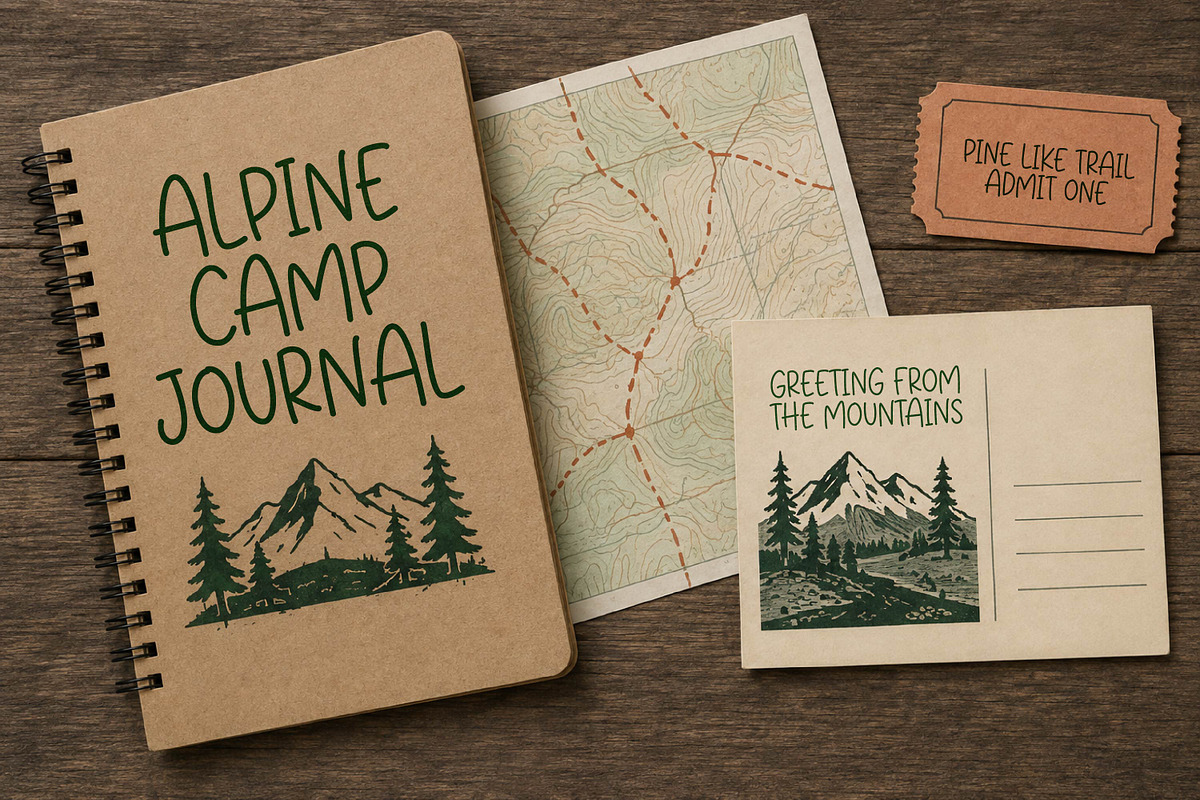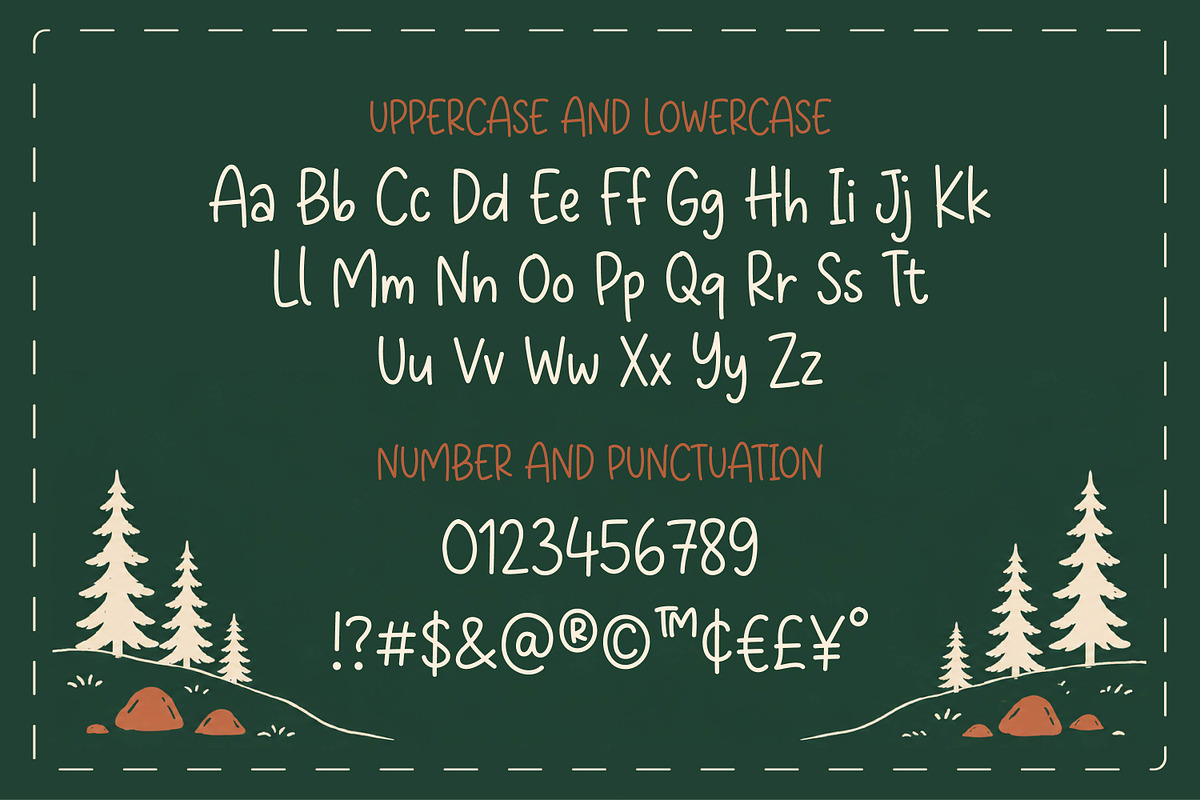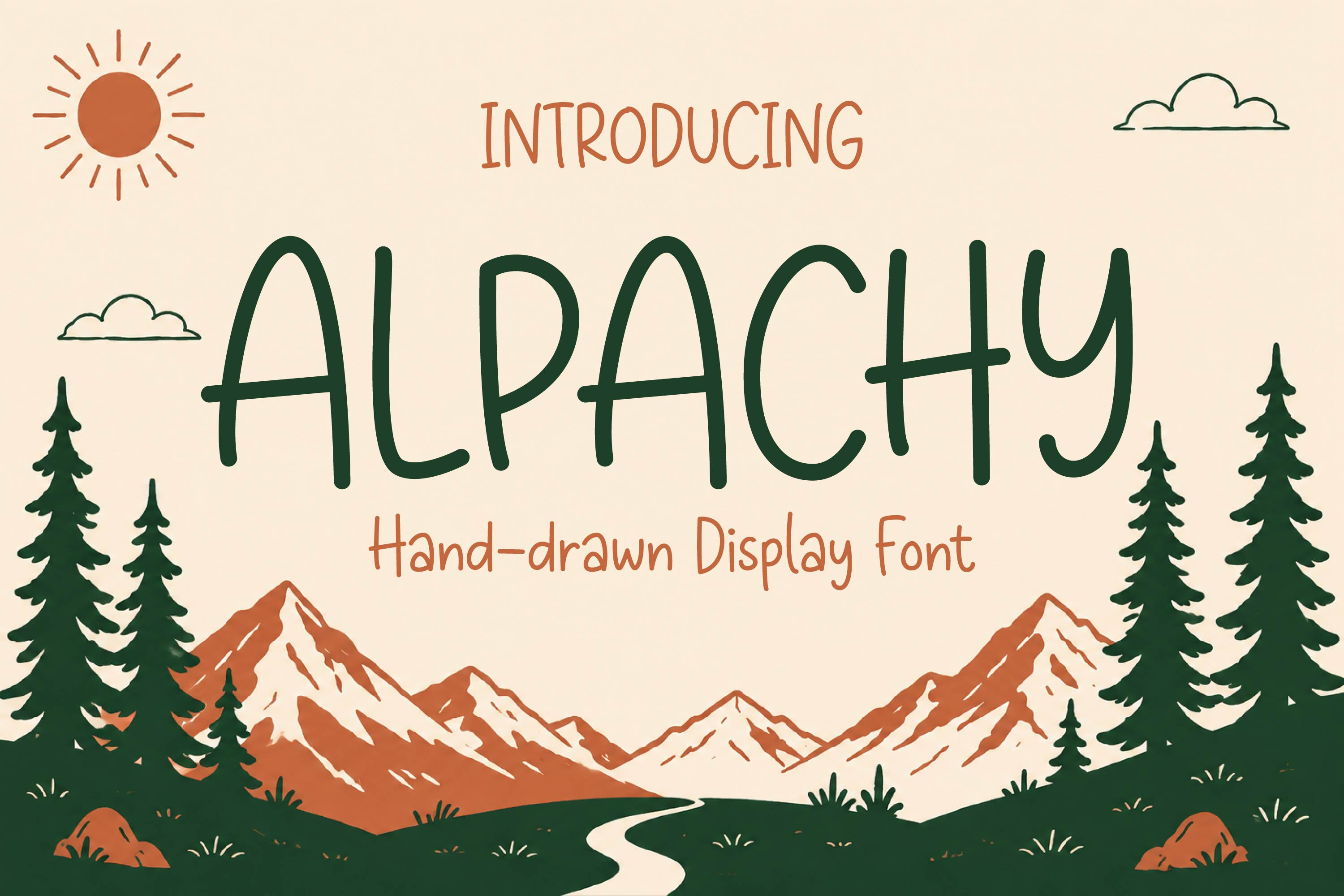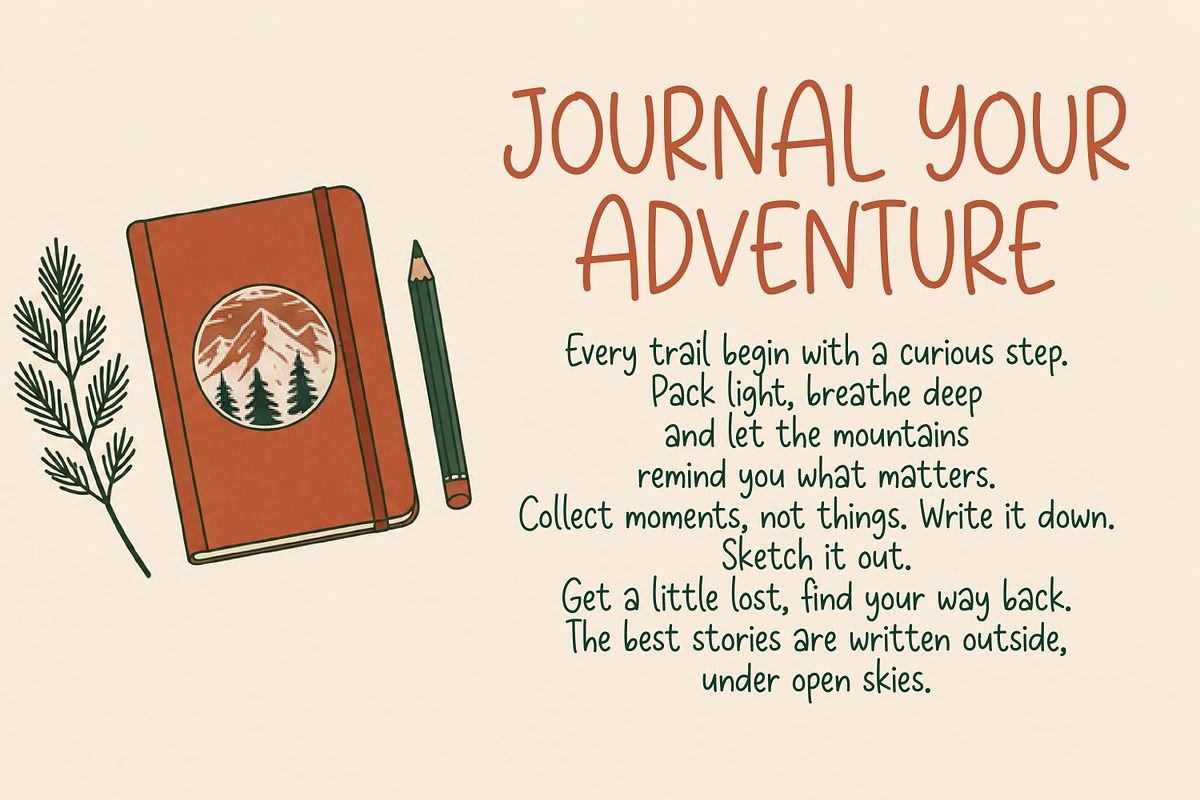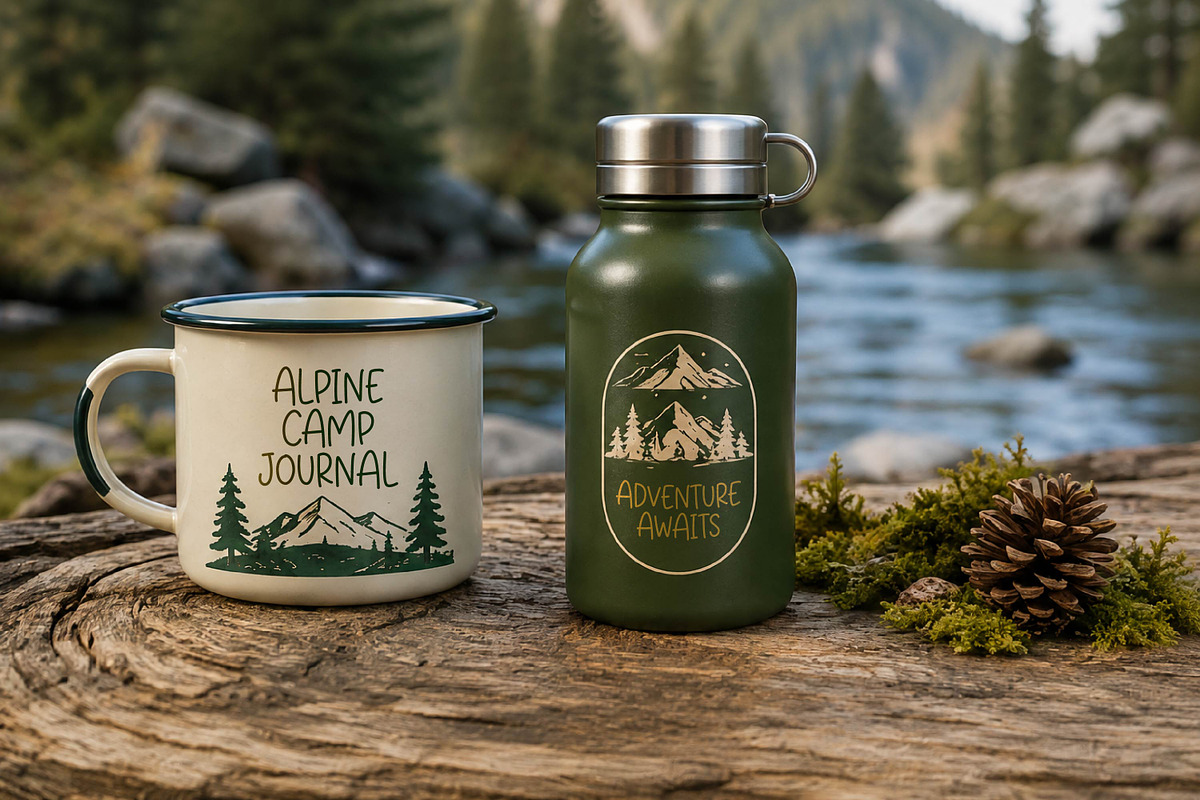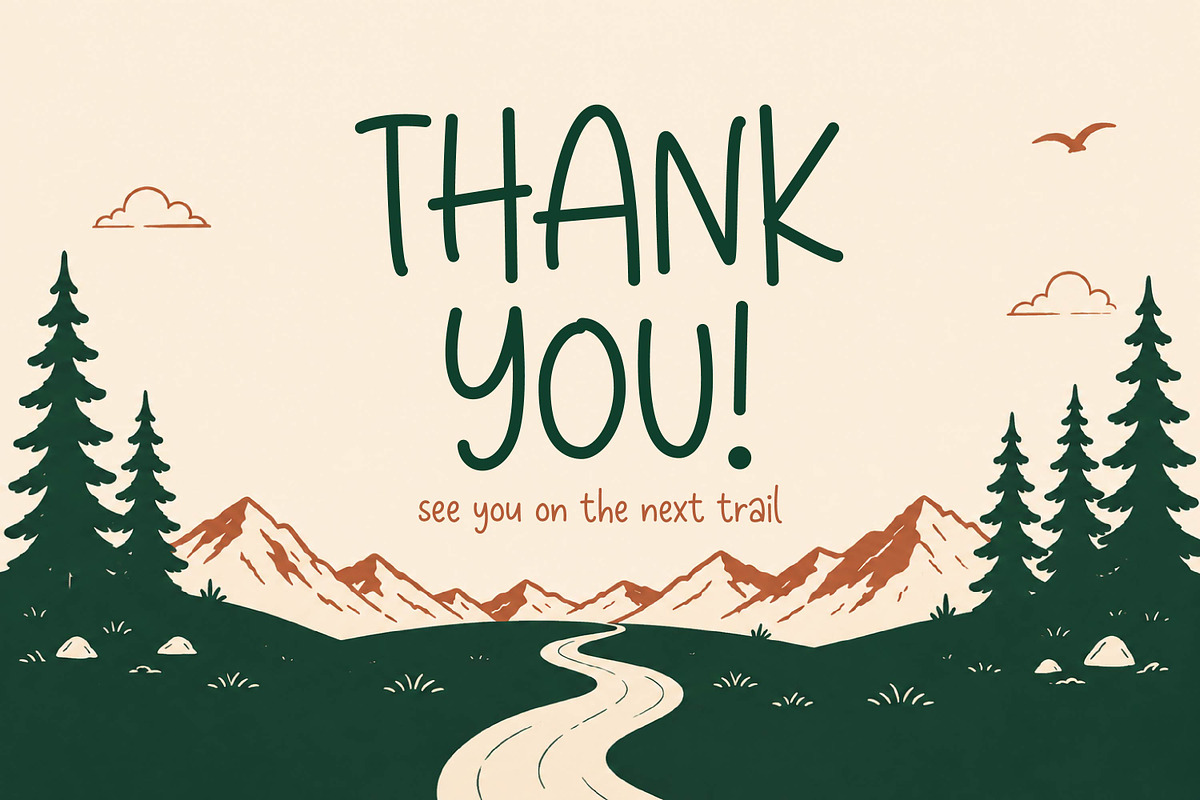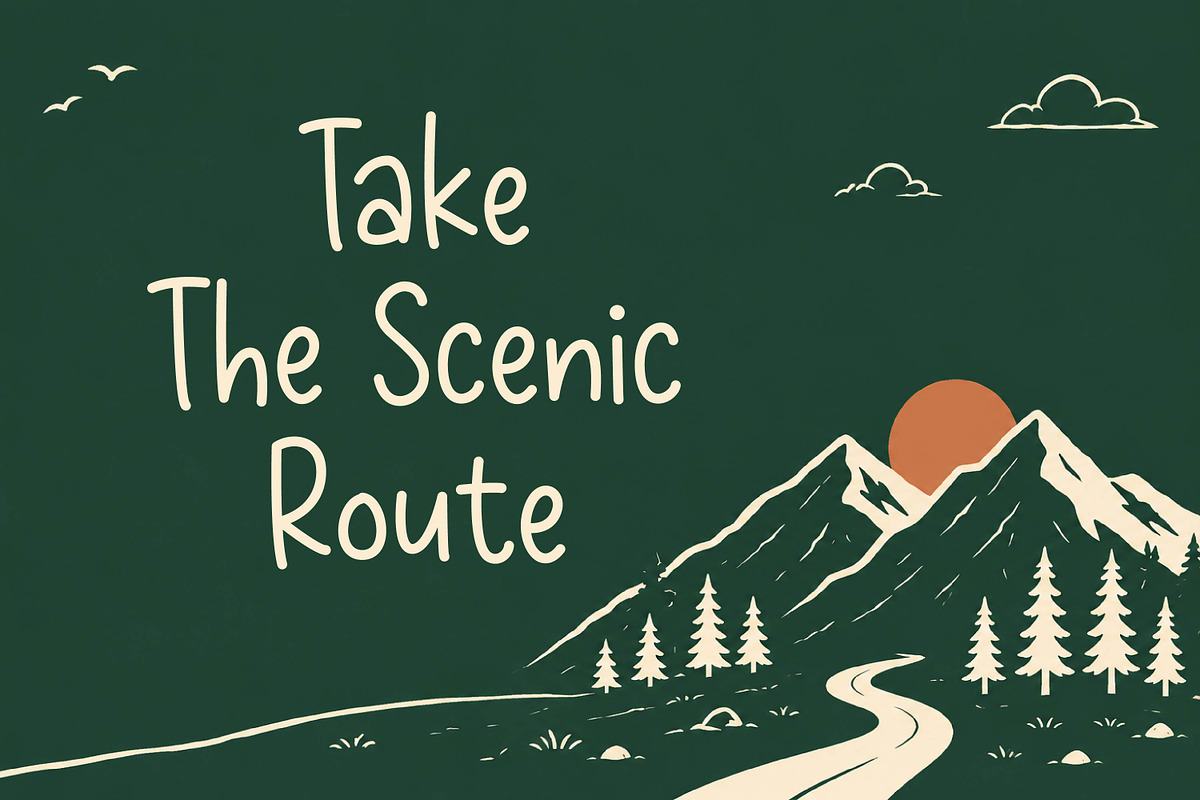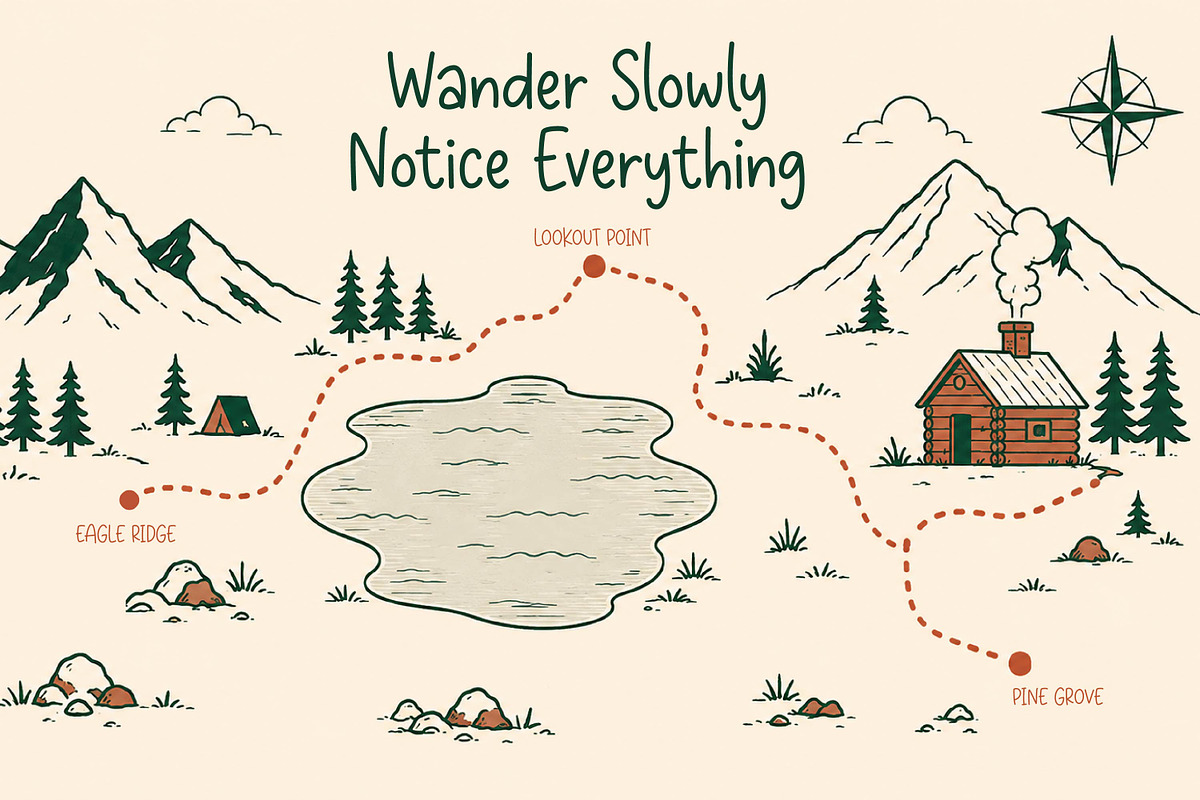
Alpachy - Handdrawn Display Font
Alpachy is a charming hand-drawn display font with tall, organic letterforms and a warm, playful personality. Perfect for outdoor branding, posters, packaging, children’s designs, invitations, logos, and creative projects that need a natural handmade touch.